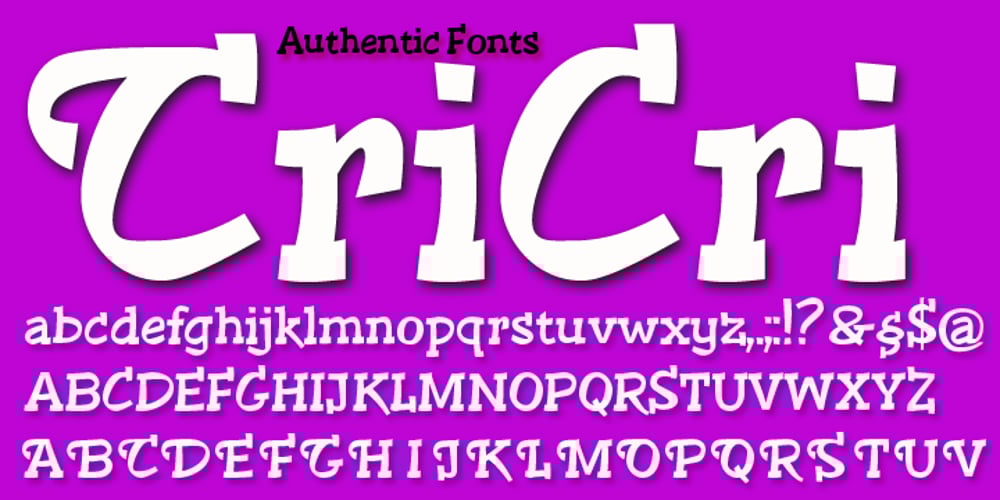
Cri Cri Font Family was designed by Julius Wiescher and published by Authentic. Cri Cri contains 2 styles and family package options. CriCri is a slab serif typeface with that French, loose but authentic touch. I designed a Swashes version with it so you can mix the two cuts.